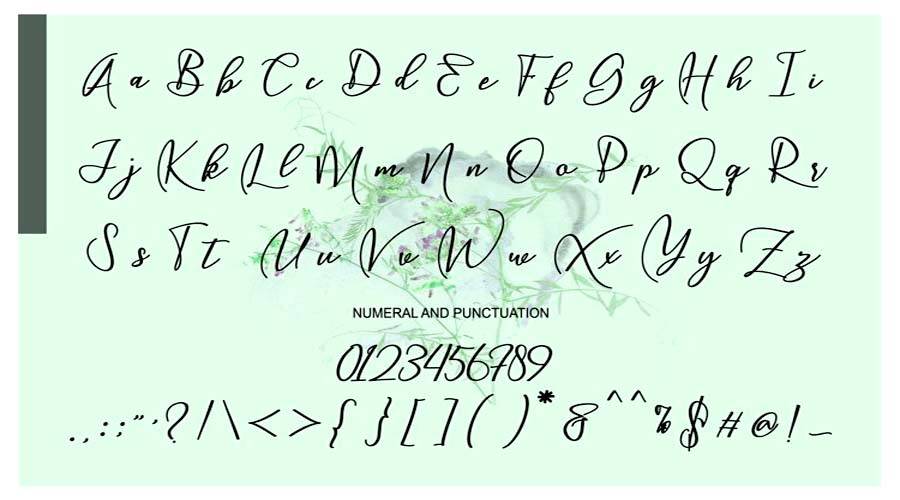
Wellington Font
Wellington Font is a latest handwritten and script font. Masinong Studio created and released the lovely font on January 6, 2019.
Wellington Font is a handwritten and script font of high quality. The font is free to download and use for private uses. The free version includes all uppercase and lowercase letters, as well as several special characters. The font is readily accessible in TTF and OTF formats. This typeface is divided into two main categories: script and Handwritten. It steadily receives excellent ratings as the most recent design typeface. As the most recent design typeface, it consistently receives high marks.
Wellington Font is ideal for use in signatures, stationery, logos, lettering phrases, newspaper or book covers, web portal headers, clothing, branding, and packaging design, among other things. Index cards, wedding invitations, t-shirt designs, mottos, quotes, fashion, watermarks, and digital signature can all benefit from the typeface. Because of the font, your projects will have an organic hand made taste.